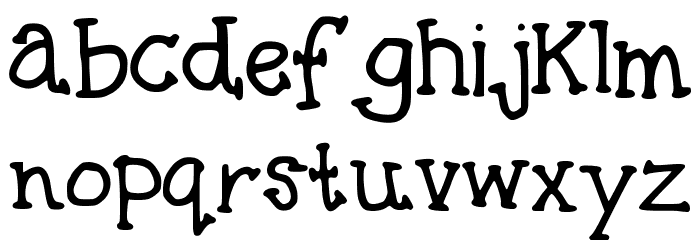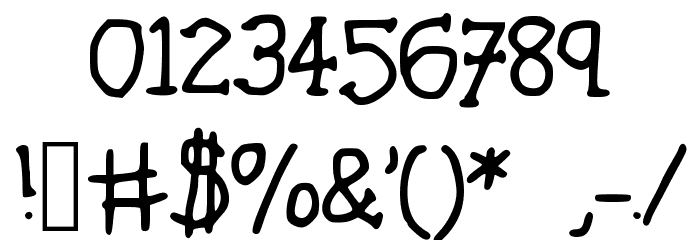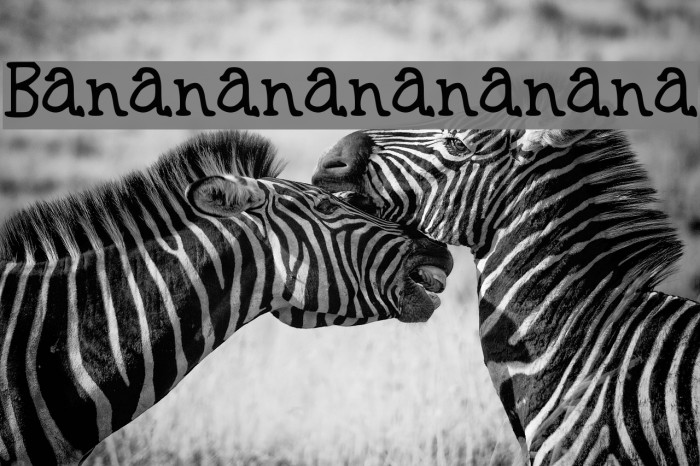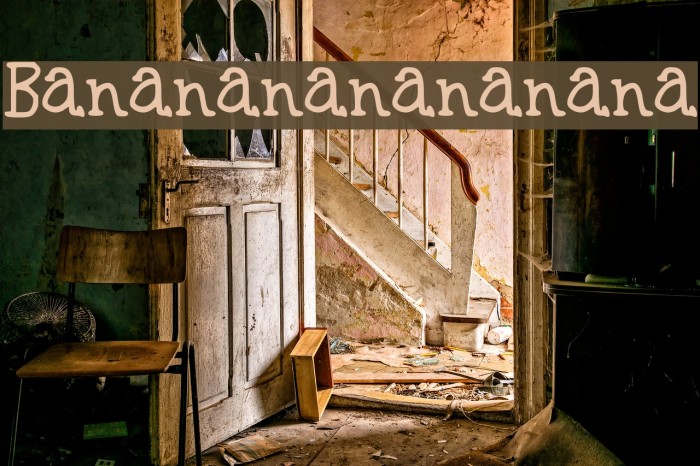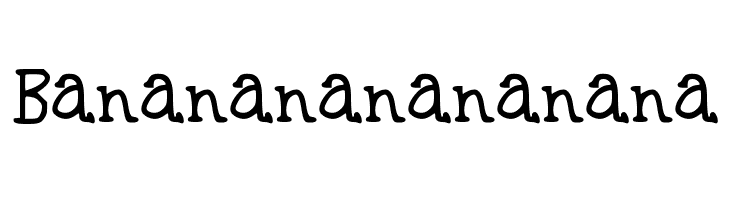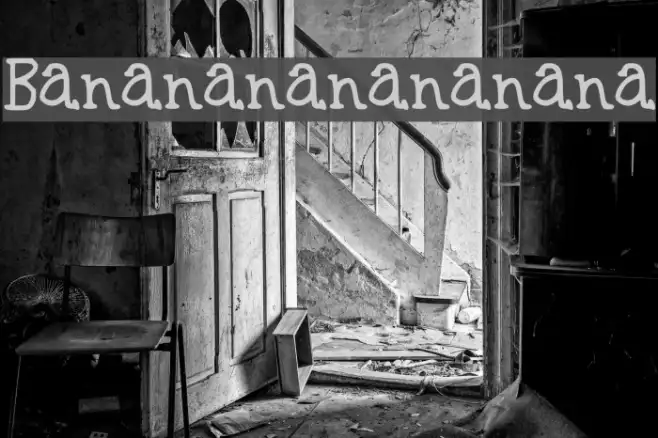
Bananananananana Font
This playful and whimsical font features a hand-drawn style with irregular strokes and a casual appearance. The characters have a slightly uneven baseline, adding to the informal and friendly feel. The uppercase letters are bold and prominent, while the lowercase letters maintain a consistent style with a touch of quirkiness. The numerals and special characters follow the same playful design, making the font suitable for creative and fun projects. The overall look is approachable and lively, perfect for designs that aim to convey a sense of joy and spontaneity.
A playful, hand-drawn font with a whimsical and casual style.
- Proposed Projects: Ideal for children's books, party invitations, playful branding, and creative posters.